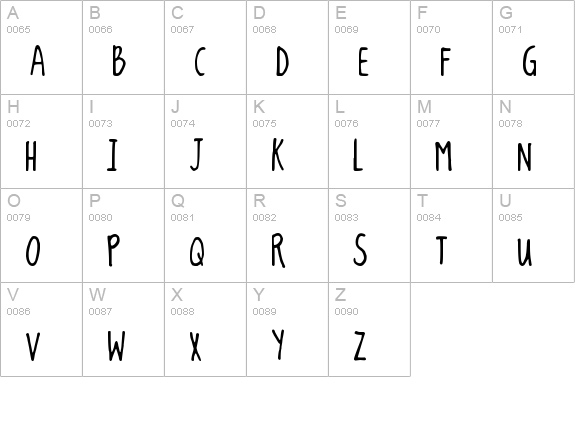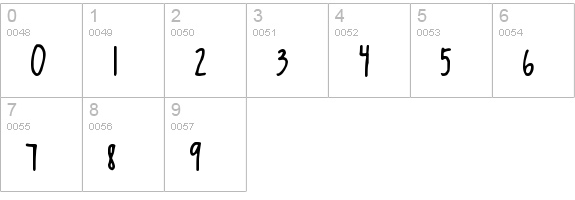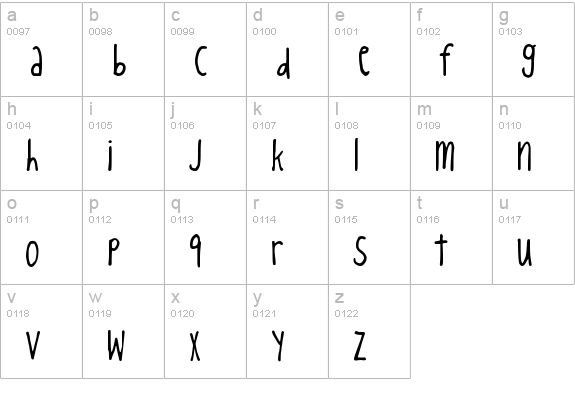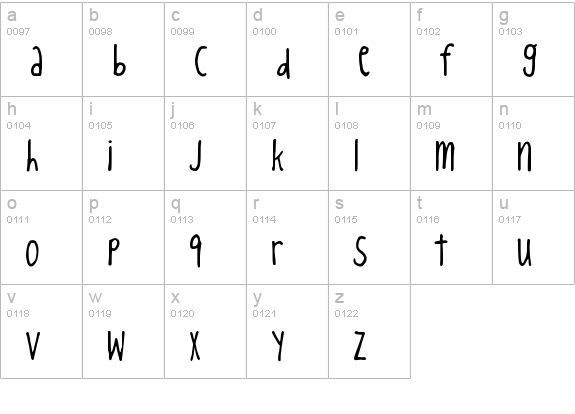
king cooL KC Font Details
King Cool KC font is a modern and stylish typeface that exudes a sense of sophistication and elegance. With its clean lines and bold, eye-catching design, this font is perfect for creating striking headlines, logos, and branding materials. The King Cool KC font is versatile and can be used for a wide range of design projects, from websites to print materials. The best part is that King Cool KC font is available for free download at FontsMarket.com. This means you can easily access and use this high-quality font in your projects without any cost. Don't miss out on the opportunity to add this unique and stylish font to your design toolkit today!